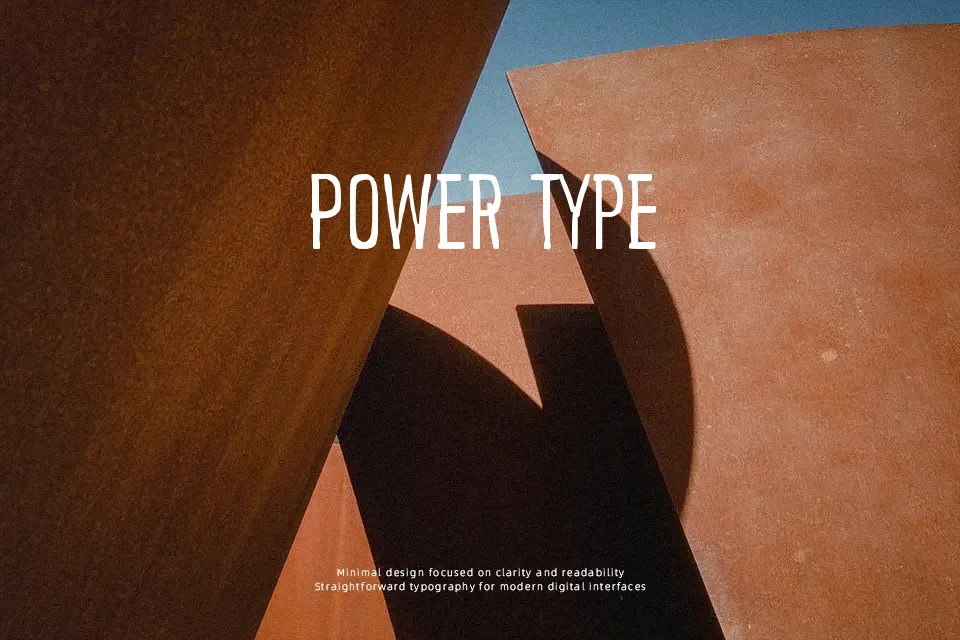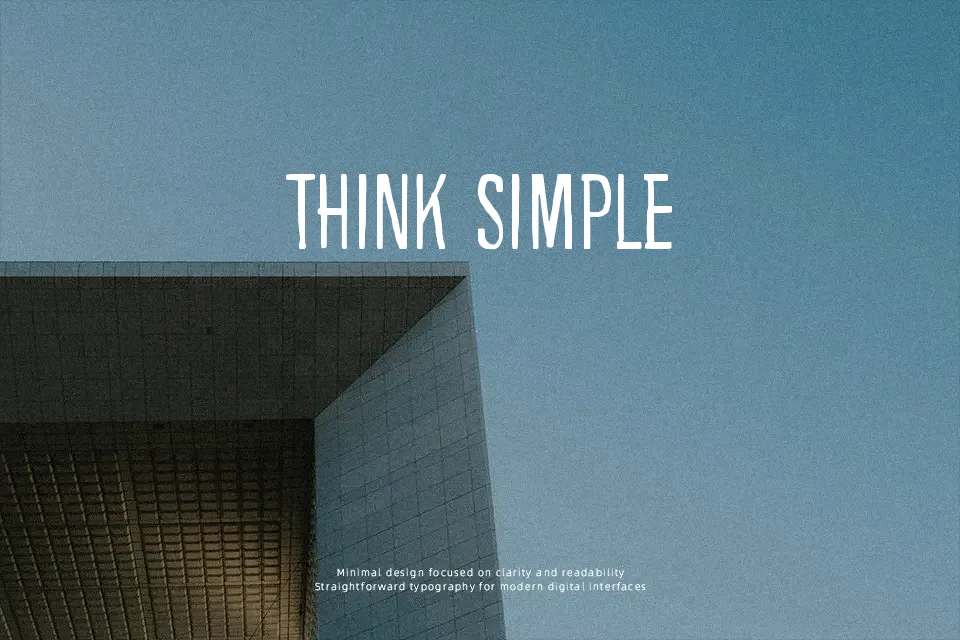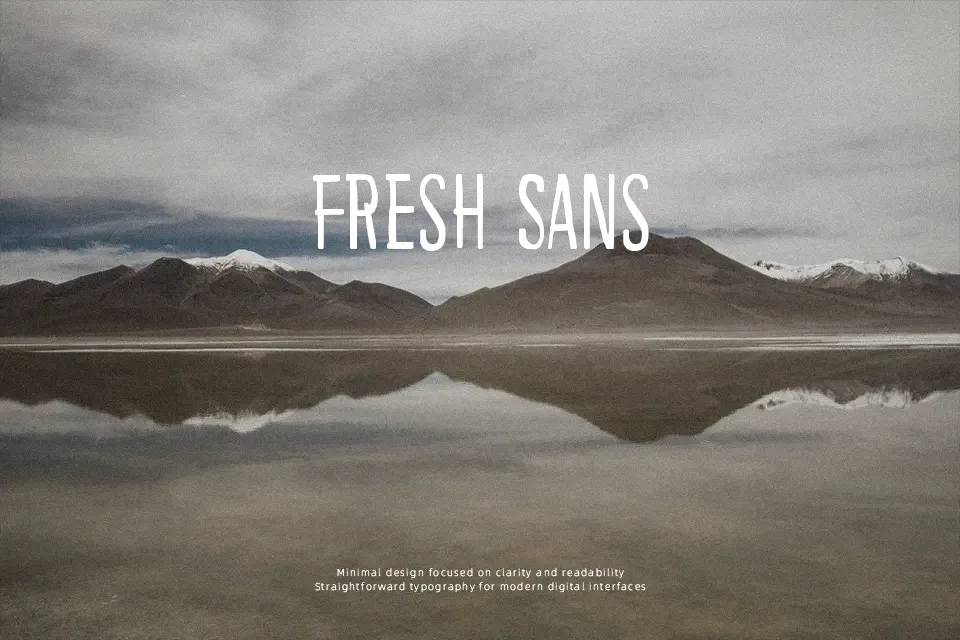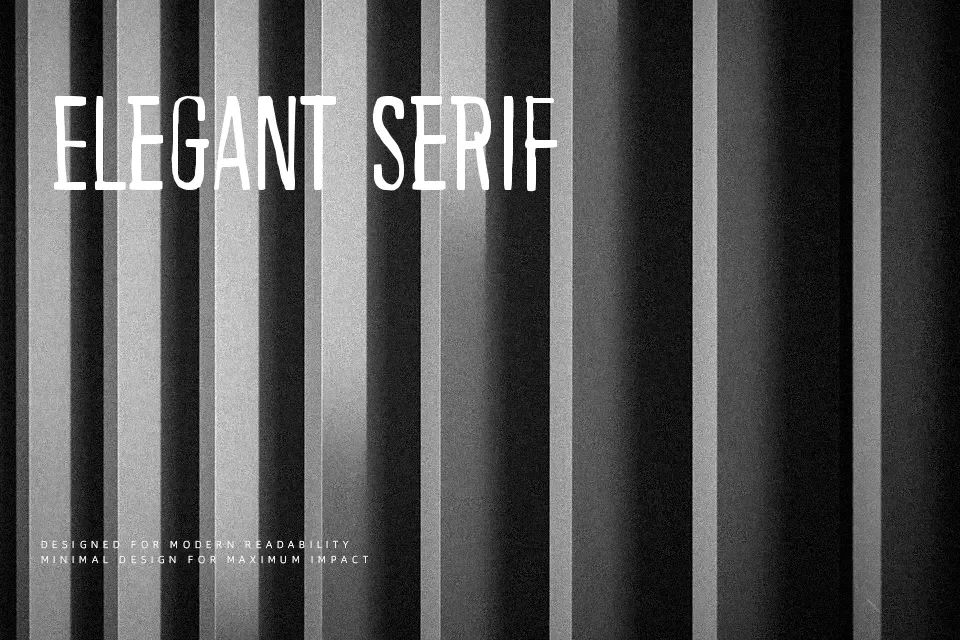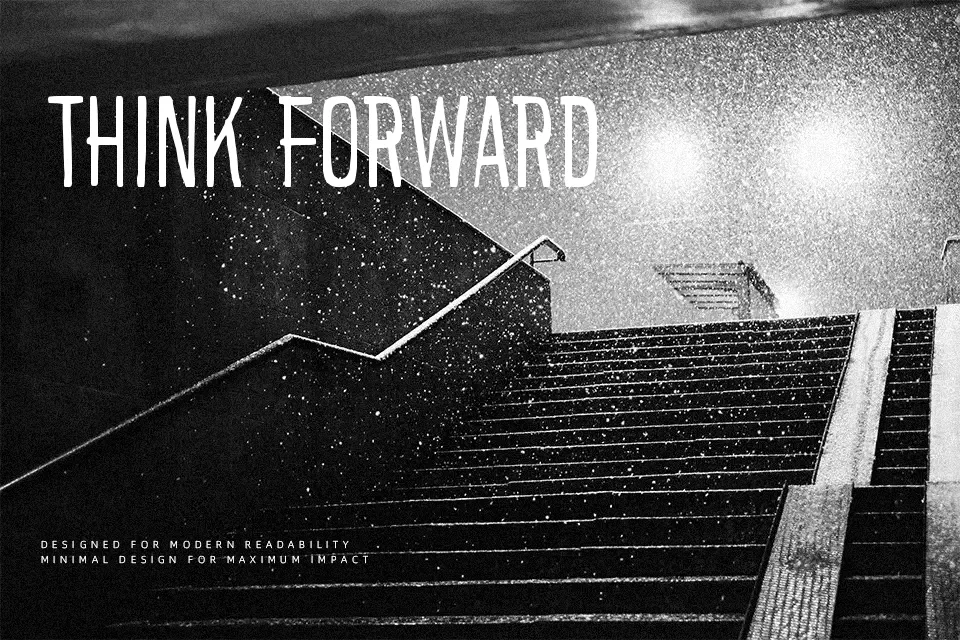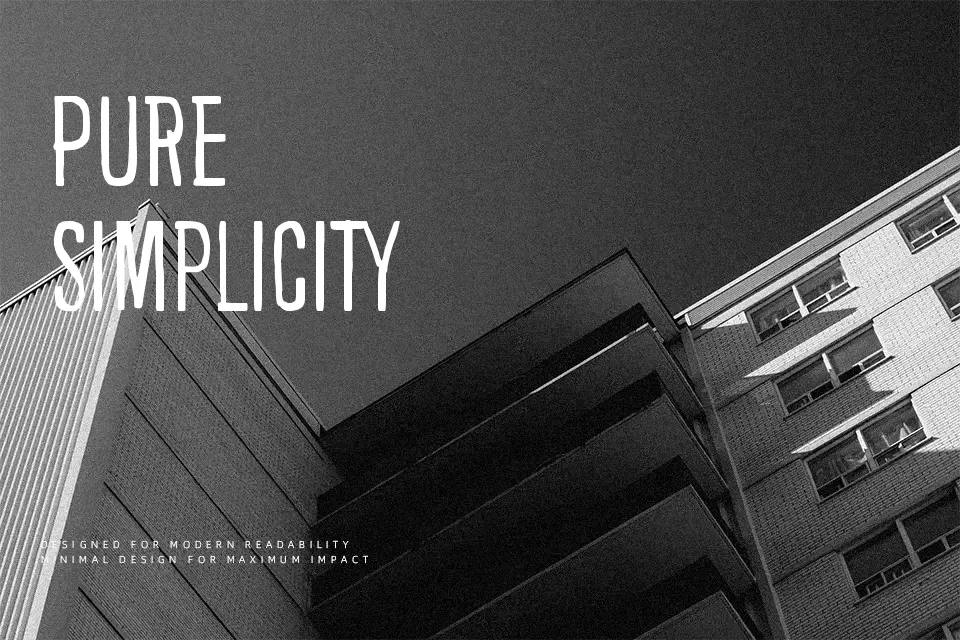
Background noise Font
Designed by Juha Korhonen
Tall and condensed, Background noise runs on rough edges — each letterform carries visible erosion that reads less like decoration and more like wear from actual use. It sits in that crossover zone between sans serif clarity and grunge distortion, giving it a scrappy street authenticity that works where clean fonts fall flat. The narrow proportions make it a workable fit for multi-word headlines on posters or album artwork. That said, the eroded texture degrades fast at small sizes, making it a poor call for captions or body copy. It handles itself best when set large and given room to breathe — crowded or tight layouts blunt the effect considerably. Designers who’ve used similar fonts like Sabbath Black or Dirty Headline will recognize the territory here.
Best For:- Underground music event posters
– Streetwear brand or apparel labels
– Zine and punk-aesthetic editorial headers
– Grunge-style social media graphics
Not Ideal For:- Body text or paragraph copy
– Corporate or professional documents
– Small-scale print like business cards
– Clean, minimal UI design
Perfect for branding, headline, and music, with a bold and display style.